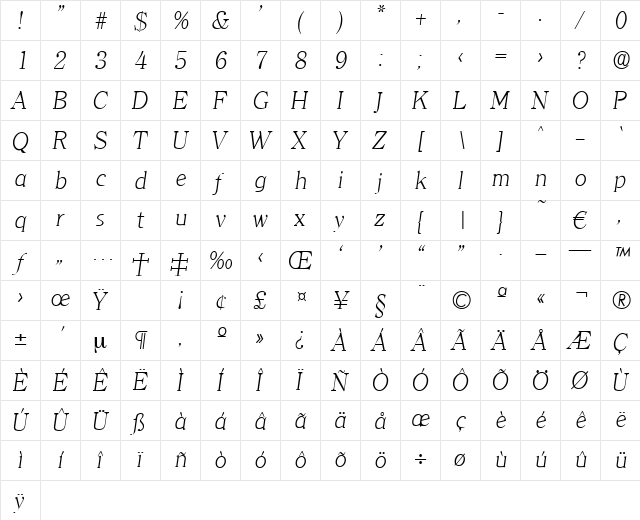
Clerface-XlightIta Regular Font Preview
Clerface-XlightIta Regular
Clerface-XlightIta Regular Font Details
Design Context for Clerface-XlightIta Typeface
Clerface-XlightIta takes a measured approach to typography — its balanced proportions and neutral character make it a reliable workhorse for both digital and print work. Its slender proportions lend an understated elegance to any composition.